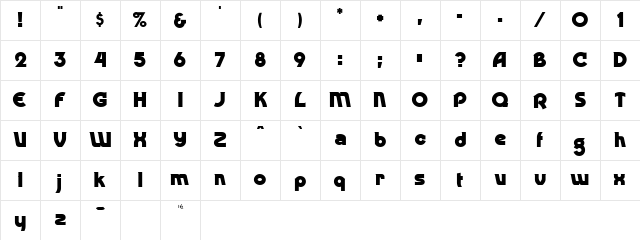
DingDong Normal
Design Context for DingDong Typeface
DingDong takes a measured approach to typography — its balanced proportions and neutral character make it a reliable workhorse for both digital and print work.
Pro Tip: Use DingDong in both headline and body roles to test its range before committing to a single application.